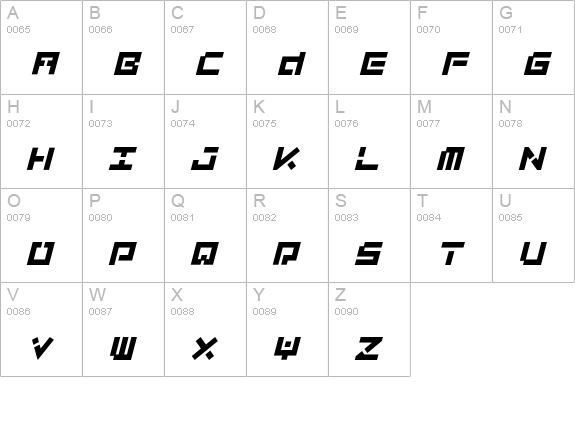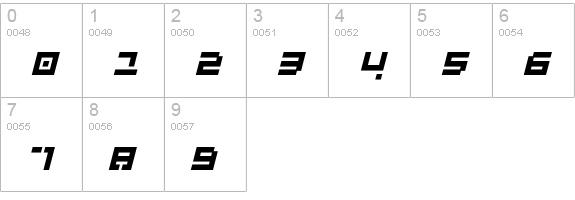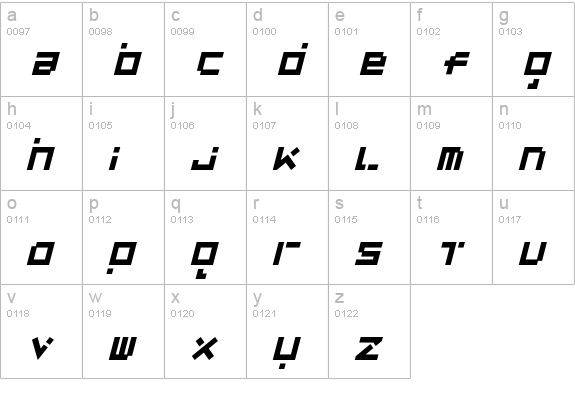
LuggageBrokenHeavyObl Font Details
LuggageBrokenHeavyObl font is a uniquely designed typeface that exudes a sense of ruggedness and durability. With its broken and heavy appearance, this font is perfect for adding a touch of edginess to your creative projects. The bold and robust characters make a strong statement, making this font ideal for headlines, posters, and branding materials. What's even better is that LuggageBrokenHeavyObl font is available for free download at FontsMarket.com. This means you can easily access this striking font to enhance your designs without any cost. Don't miss out on the opportunity to add a touch of boldness to your projects with this dynamic typeface. Download LuggageBrokenHeavyObl font today and elevate your design game!